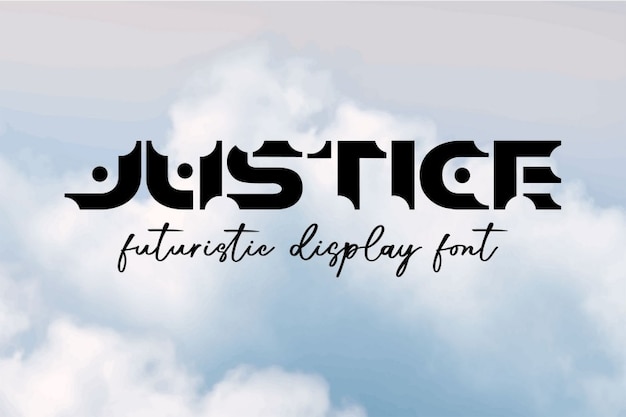
Justice Font
"Justice" is a futuristic font that incorporates dotted accents, giving it a bold, innovative edge. Its clean lines and dot-based design evoke a sense of technology and modernity, perfect for high-tech, sci-fi, or justice-themed projects. This font combines sleekness with creative flair, adding a unique, forward-thinking feel to any design.